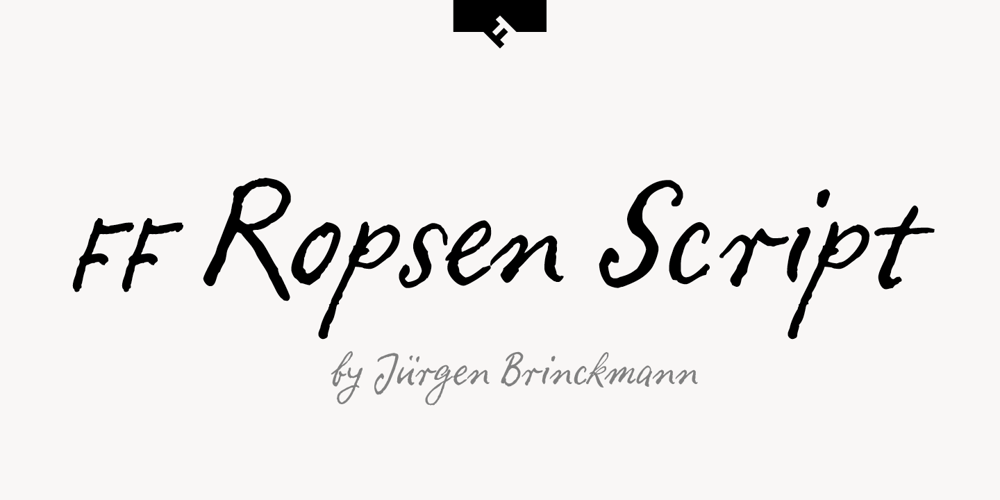
FF Ropsen Script
FF Ropsen Script Font Family was designed by Jürgen Brinckmann and published by FontFont. FF Ropsen Script contains 2 styles and family package options. German type designer Jürgen Brinckmann created this script FontFont in 2001. The family contains 2 weights: Regular and Bold and is ideally suited for advertising and packaging, festive occasions, editorial and publishing as well as poster and billboards. FF Ropsen Script provides advanced typographical support with features such as ligatures, small capitals, alternate characters, and case-sensitive forms. It comes with a complete range of figure set options – oldstyle and lining figures, each in tabular and proportional widths.